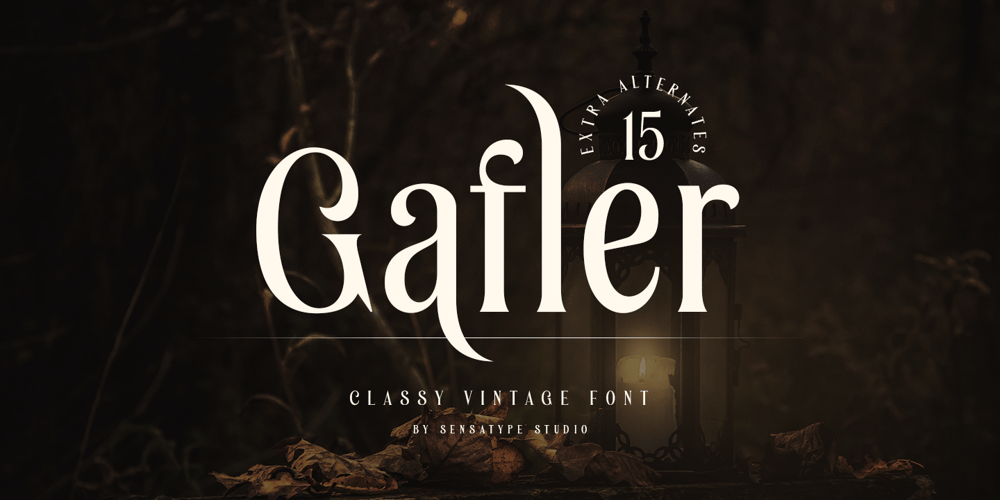
Gafler SS Font Family was designed by Zamroni Hamzah and published by Sensatype Studio. Gafler SS contains 1 styles and family package options. Gafler is a vintage font that produced with unique style and ready for vintage projects.Based on our experience as a graphic designer who works for a lot of companies, we often are requested to design a graphic with a vintage feels and classy style. So, we try to brainstorming and create this font to make the idea is going out. This is perfect for show off in vintage style and retro vibes. You will get vintage, classy, and certainly unique style with this font.Gafler font is also included full set of: Uppercase & Lowercase letters Multilingual characters Numerals Punctuations Wish you enjoy our font. 🙂